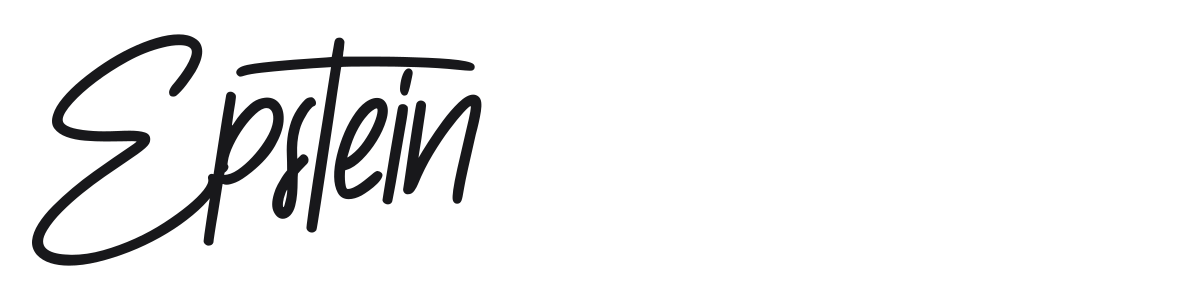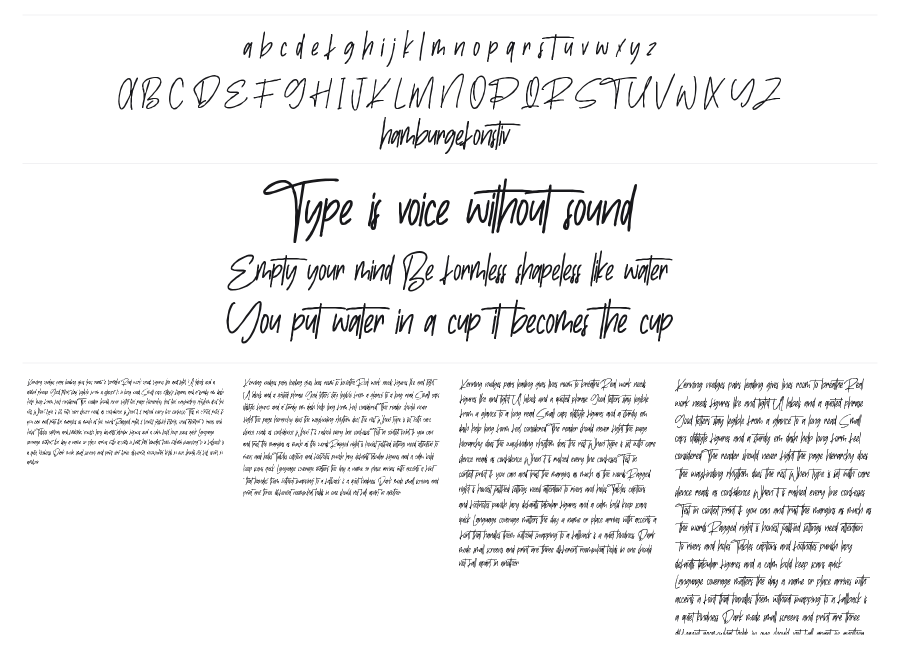
Epstein
Epstein is a casual handwritten script that captures the quick, natural energy of a real signature. Its thin, near-monoweight strokes and irregular letterforms give it an authentic, personal quality that polished calligraphy scripts often lose. Works well for brand identity, packaging, and any context that needs a human touch.